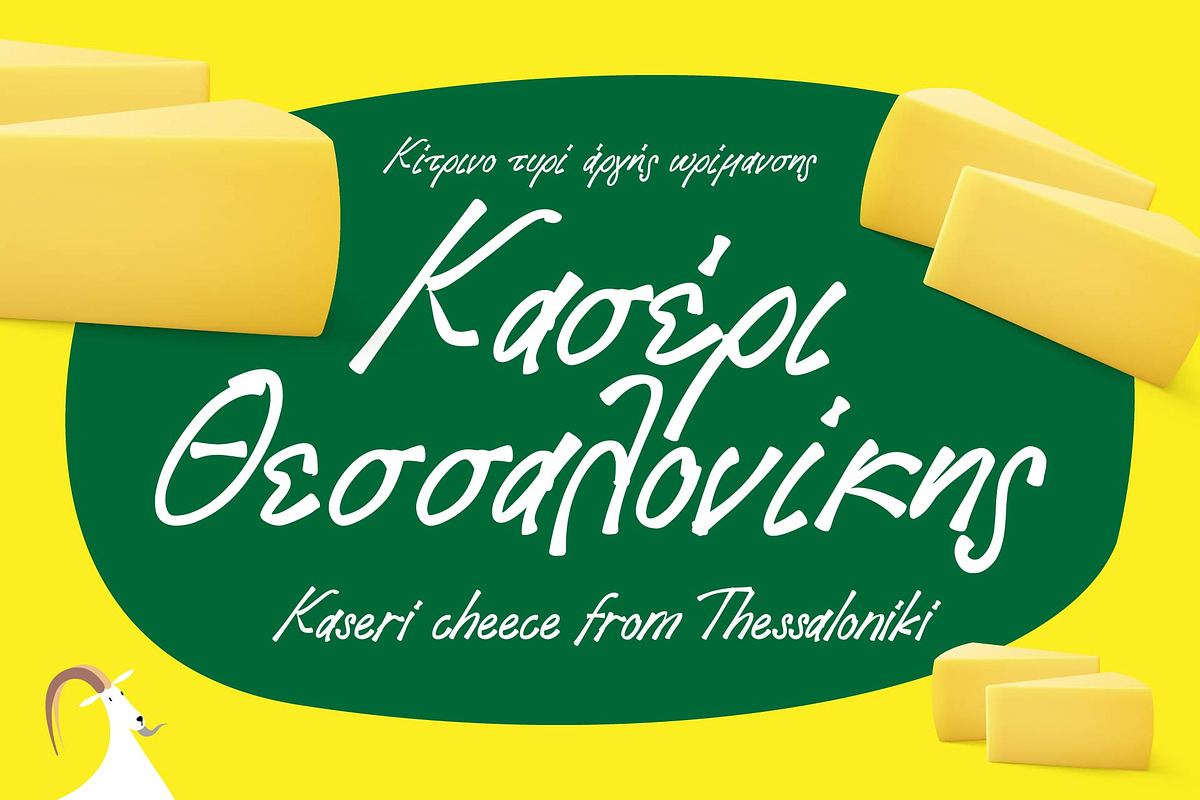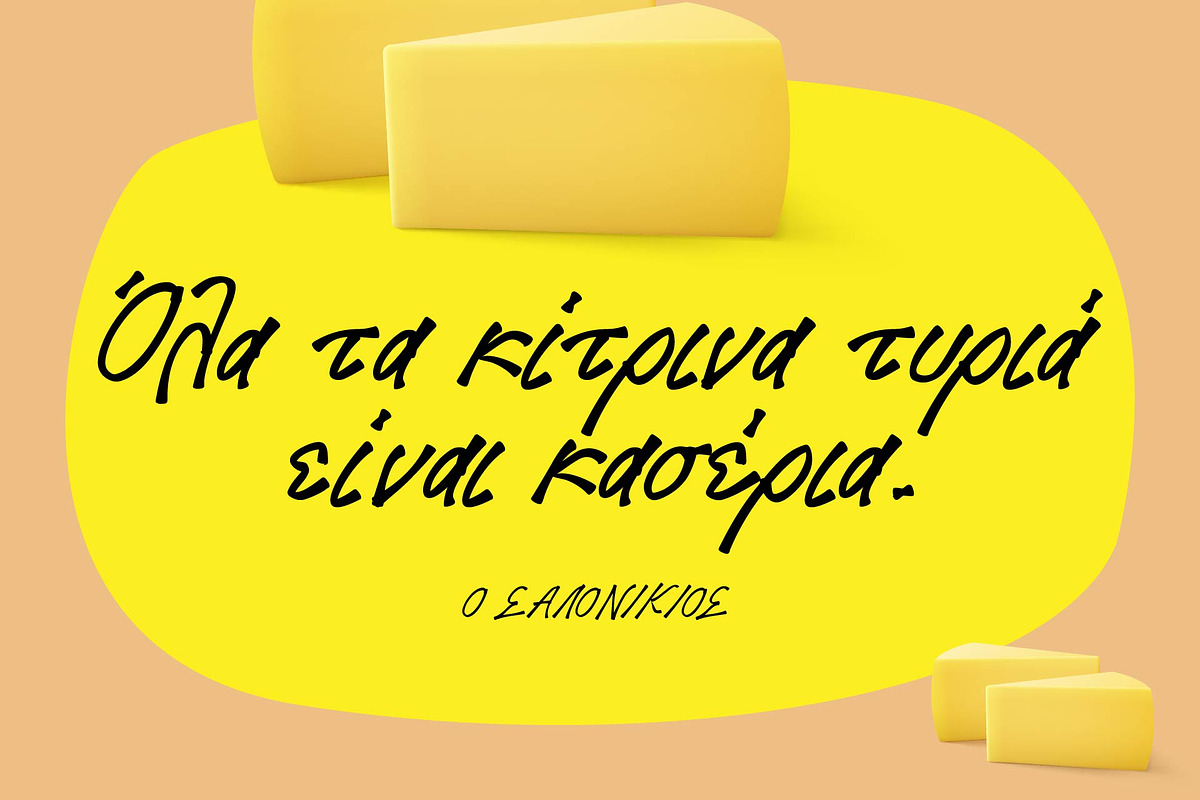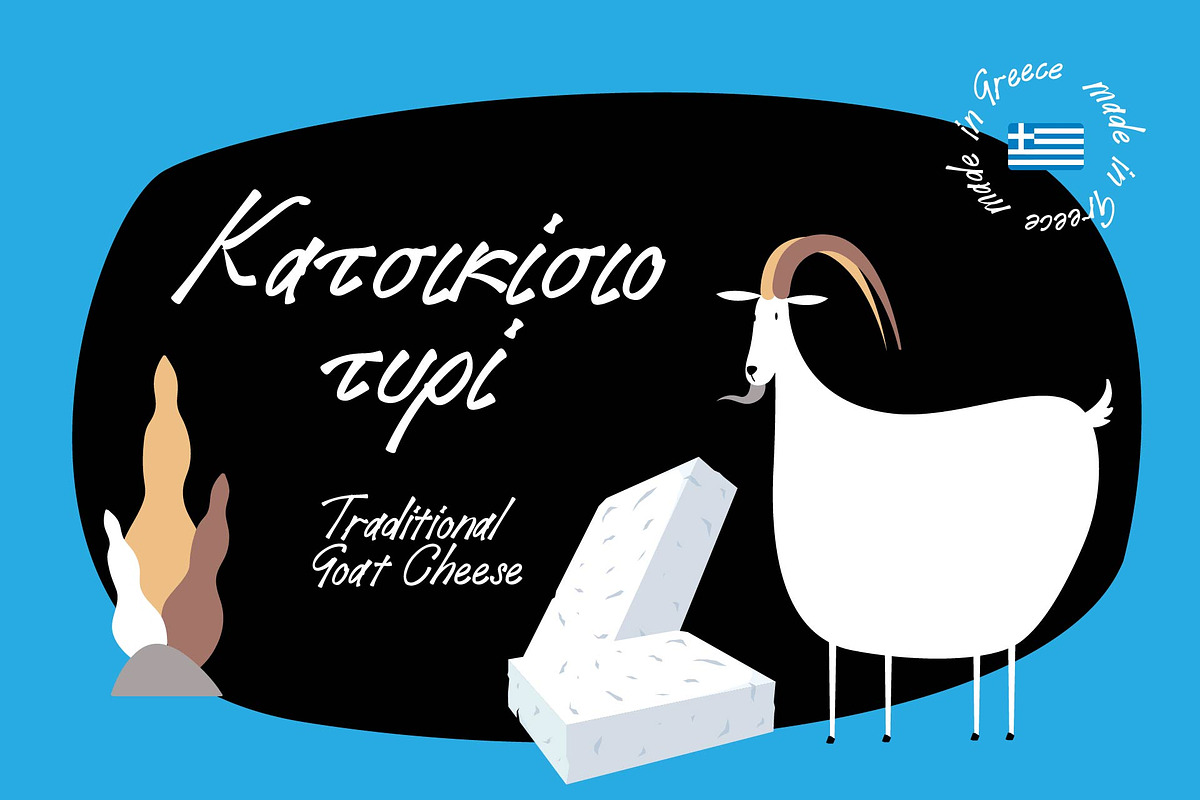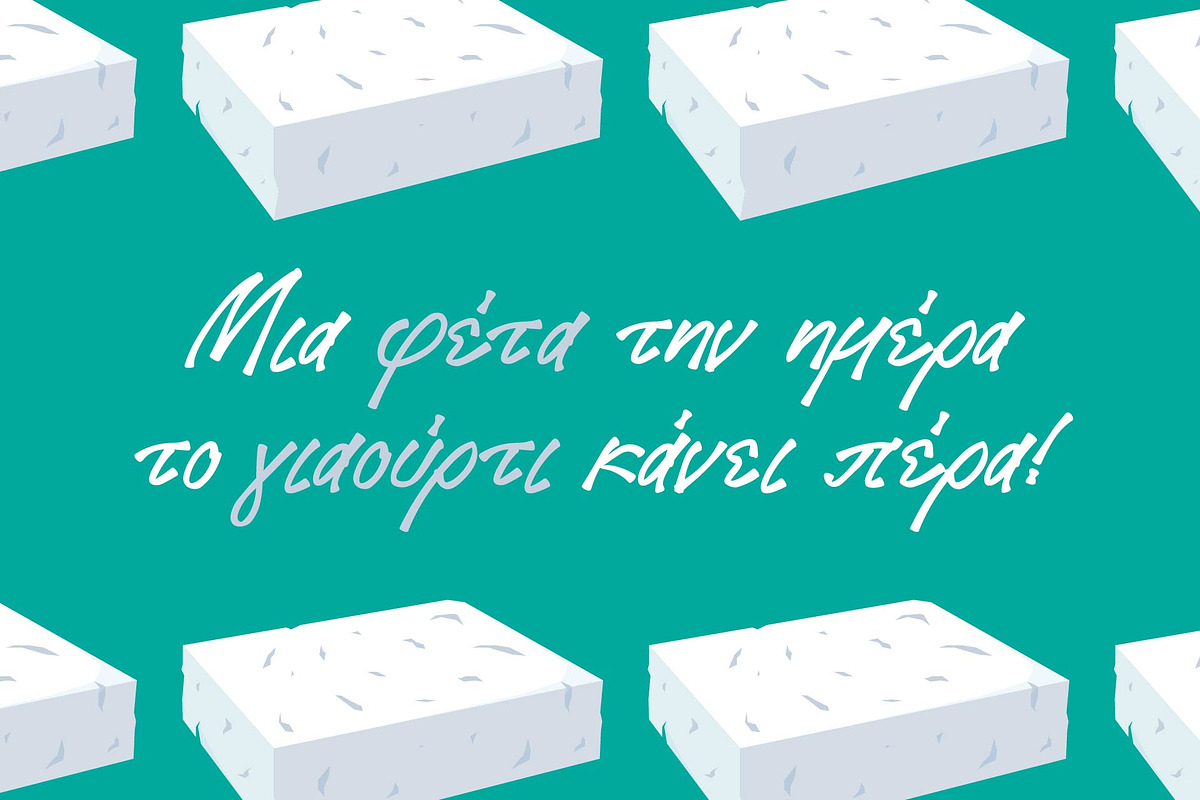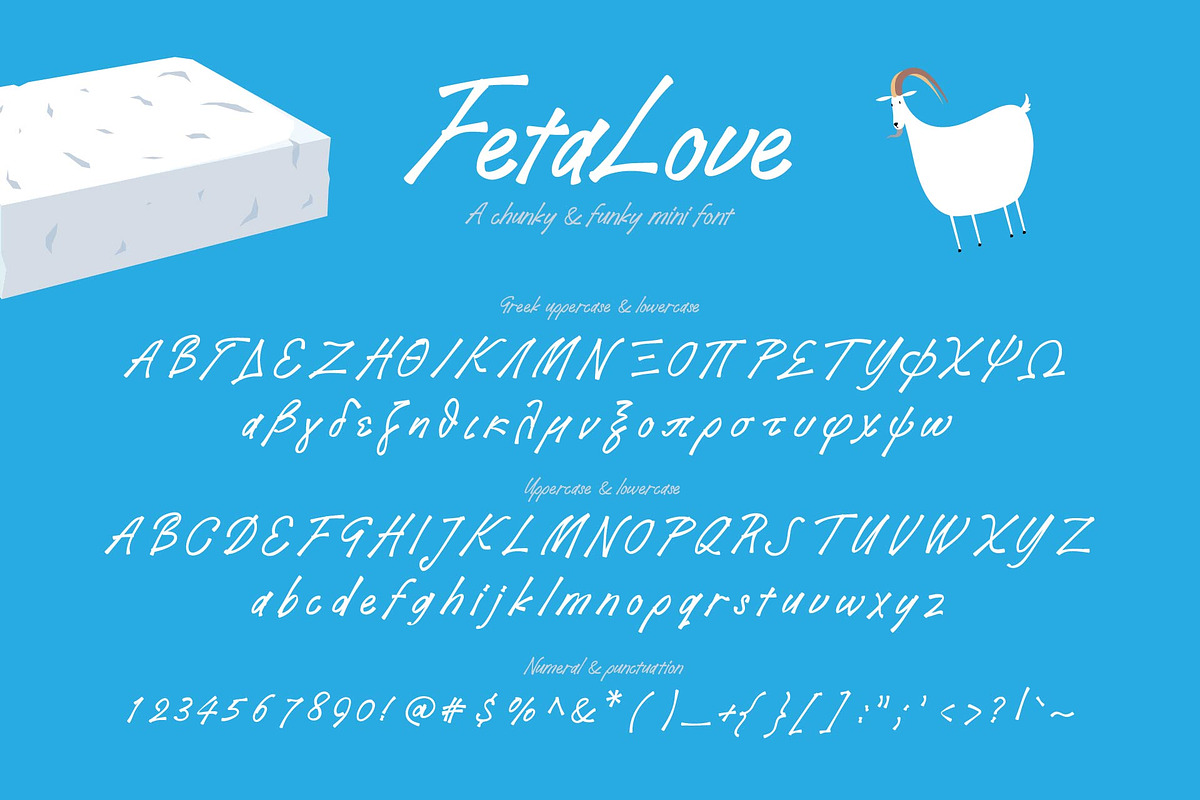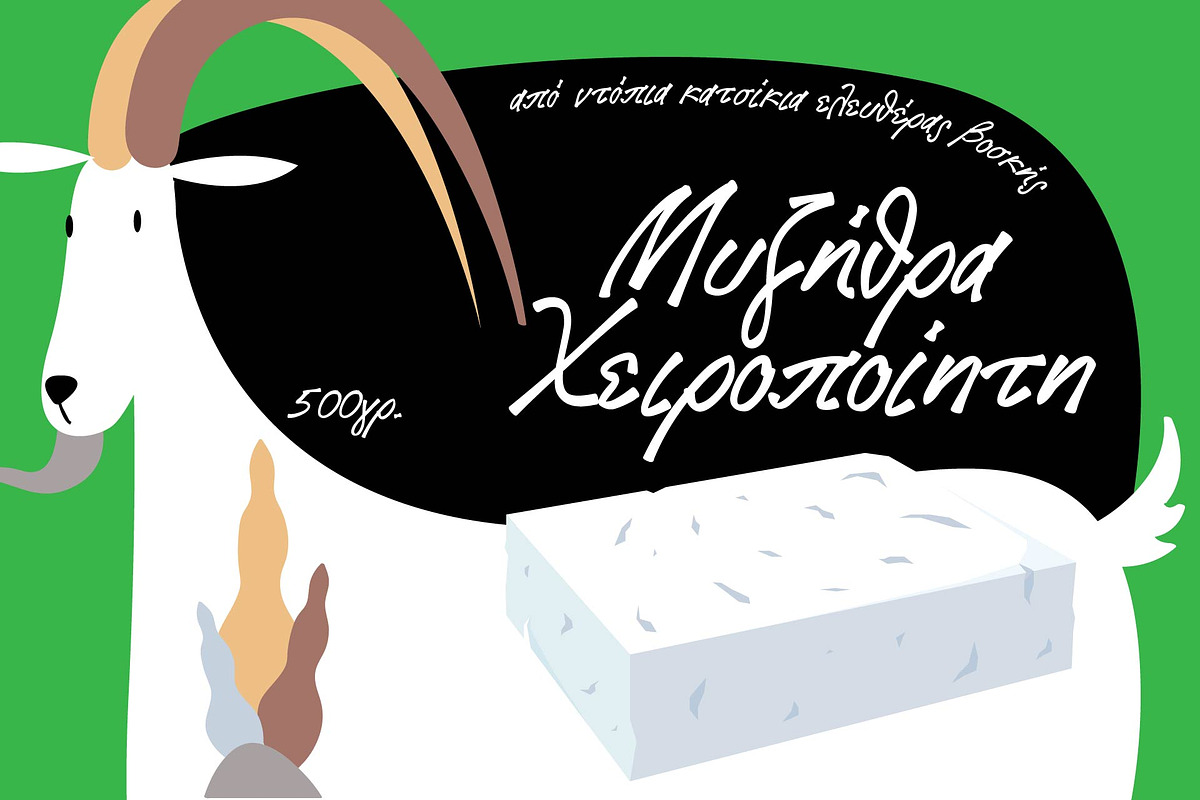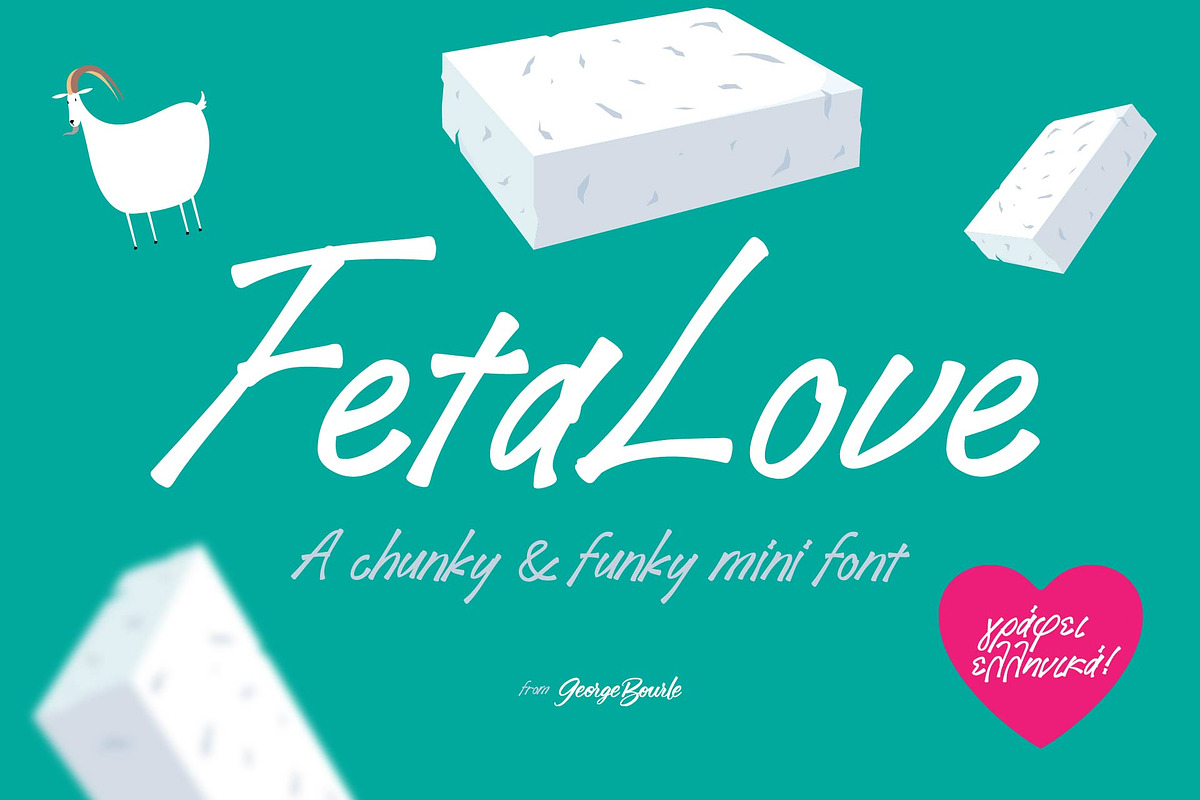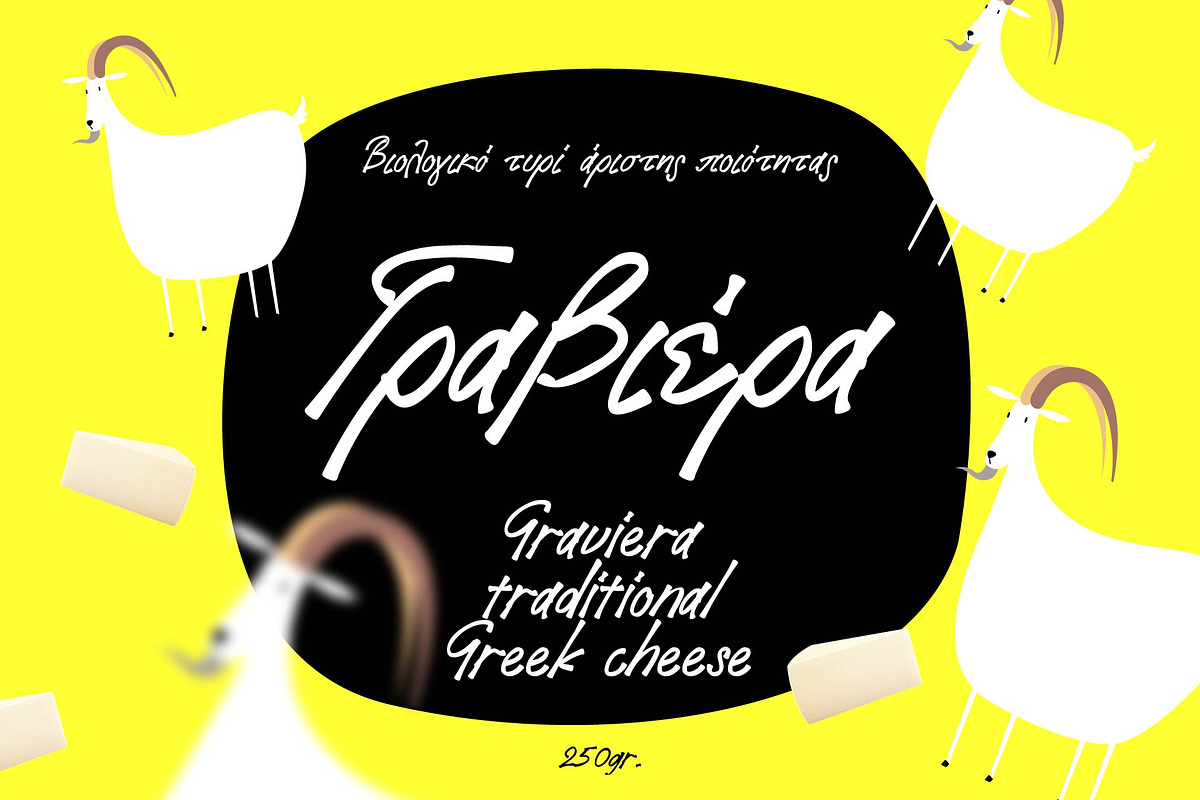
Feta Love
Say hello to "Feta Love". A chunky and funky mini font, ready to pop up your design challenges.
This playful font is perfect for your packaging projects, quotes, branding or anything you will come up to.
As you might know Feta is a traditional Greek cheese, so it would be unfair to create a font without Greek characters. A full uppercase and lowercase Greek and Latin alphabet is available as well. Also punctuation and numerals are included.